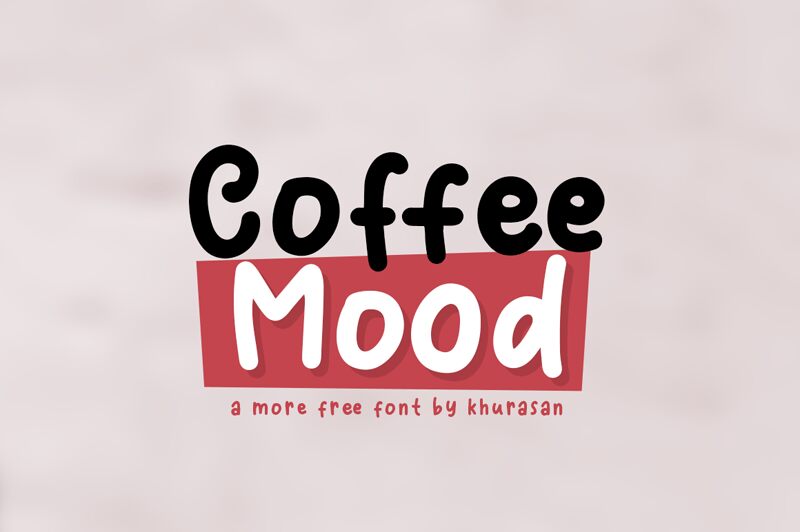
Coffee Mood is a unique handwritten font designed by Khurasan. This font is ideal for creating eye-catching logos, posters and cards, as well as meaningful messages to add a personal touch to any project.
Presentación y muestra visual de la fuente Coffee Mood